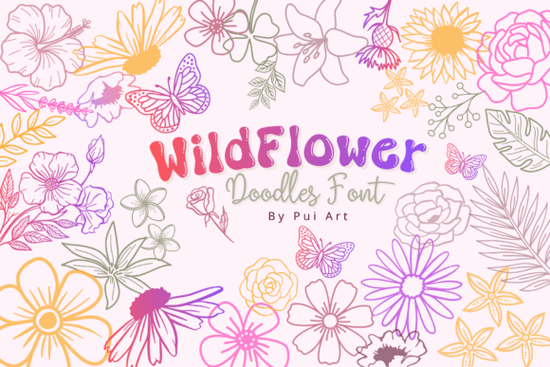
When you're looking to add a touch of natural beauty and whimsy to your creative projects, the Wildflower Doodles Font is a fantastic choice. This charming collection of hand-drawn floral doodles is inspired by blooming meadows, cottage gardens, and the serene beauty of nature. Whether you're working on invitations, wedding stationery, or DIY designs, this versatile dingbat font can bring a delightful, rustic feel to your work.
What Makes Wildflower Doodles Font Stand Out?
The Wildflower Doodles Font stands out with its unique and detailed floral elements. Each doodle is carefully crafted to capture the essence of wildflowers, daisies, leaves, butterflies, and other decorative floral motifs. This attention to detail makes it perfect for adding a personal and organic touch to your designs.
Perfect for a Variety of Creative Projects
One of the best things about the Wildflower Doodles Font is its versatility. It's ideal for a wide range of creative projects, including:
- Invitations and Wedding Stationery: Add a romantic and natural touch to your wedding invitations, save-the-dates, and thank-you cards.
- Scrapbooking: Embellish your scrapbook pages with these charming floral elements to create a beautiful and cohesive look.
- Cricut Crafts: Use the font in Cricut projects to cut out intricate floral designs for cards, home decor, and more.
- Stickers and Sublimation: Create custom stickers and sublimation prints that feature these lovely floral doodles.
- Branding and Logos: Incorporate the doodles into your branding and logo designs to give them a unique, handcrafted feel.
- Social Media Graphics: Enhance your social media posts and graphics with these eye-catching floral elements.
How to Use Wildflower Doodles Font in Your Designs
Incorporating the Wildflower Doodles Font into your designs is simple and straightforward. Here are some tips to help you get started:
- Choose the Right Elements: Browse through the font's extensive collection of doodles and select the ones that best fit your project's theme and style.
- Combine with Other Fonts: For a more dynamic design, pair the Wildflower Doodles Font with a complementary text font. For example, you might use a clean, modern sans-serif like Dog Lover's Art Font for a balanced and harmonious look.
- Experiment with Colors: Play around with different color schemes to find the one that best enhances the natural, whimsical feel of the doodles. Soft pastels, earth tones, and vibrant hues can all work well, depending on the mood you want to create.
- Use in Different Contexts: Don't be afraid to use the font in various contexts. From digital designs to physical crafts, the possibilities are endless.
Final Tips for Using Wildflower Doodles Font
To make the most of the Wildflower Doodles Font, keep these final tips in mind:
- Start Simple: Begin with a few key elements and gradually add more as needed. This helps you avoid overwhelming your design.
- Test and Adjust: Always test your designs in different contexts and make adjustments as necessary. What looks great on screen might need tweaking for print.
- Stay True to Your Style: While the font is versatile, it's important to stay true to your personal or brand style. Choose elements that complement your overall aesthetic.
With the Wildflower Doodles Font, you can bring a touch of natural beauty and whimsy to your creative projects. Whether you're designing for a special event, creating a new product, or just enjoying a crafting session, this font is sure to inspire and delight.